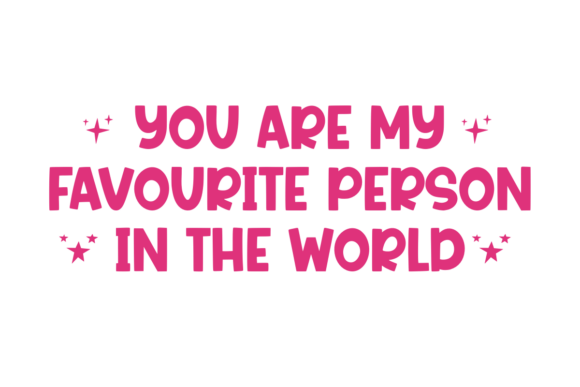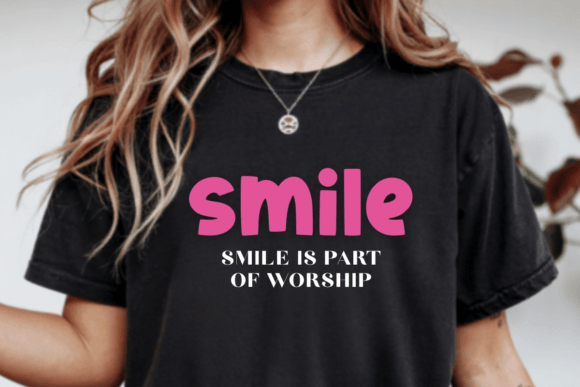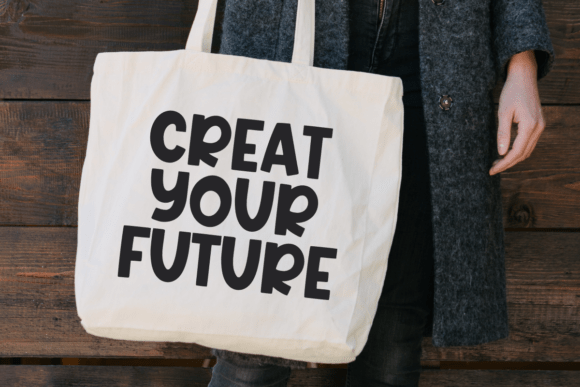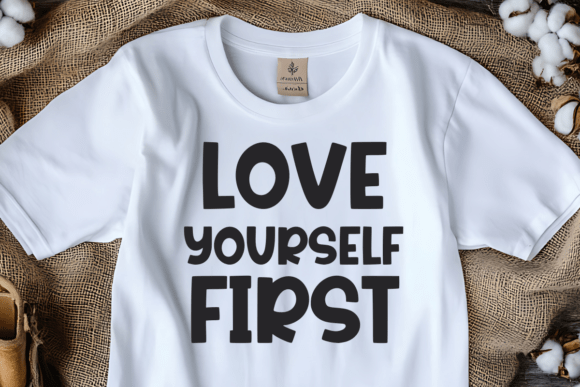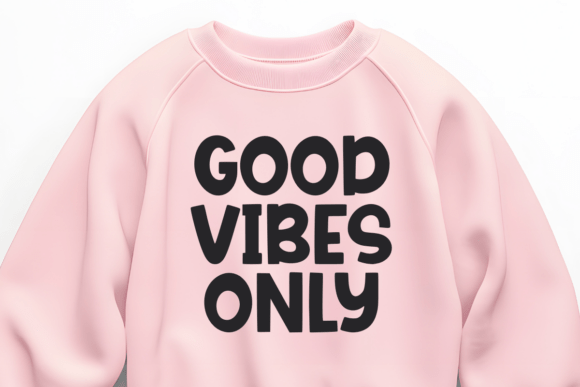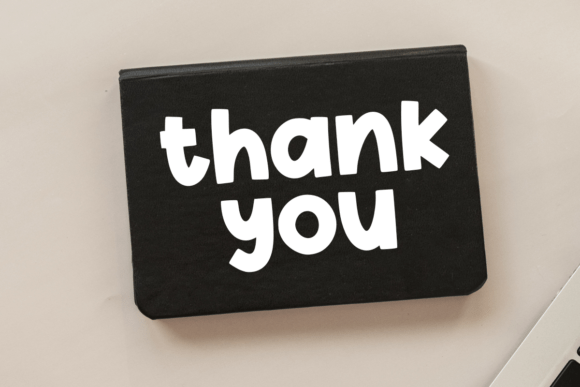
Unleash Your Creativity with Brick Bold Font: The Ultimate Display Font for Fun and Playful Designs
Are you tired of using the same old fonts for your designs? Do you want to add a burst of energy and playfulness to your projects? Look no further than Brick Bold, a vibrant and playful display font designed by Minimalist Eyes. This font is perfect for designers and crafters who want to create eye-catching and engaging designs that stand out from the crowd.
What Makes Brick Bold Font So Special?
Brick Bold font features thick, rounded characters and a friendly, hand-drawn feel that gives it a unique and approachable personality. Its bold and bubbly aesthetic makes it perfect for projects that need to make a statement, such as T-shirt designs, nursery decor, YouTube thumbnails, and branding for kids. The font’s playful and energetic vibe is sure to capture the attention of your audience and leave a lasting impression.
Brick Bold font is versatile and can be used for a wide range of design projects, including:
- T-shirt designs: Create eye-catching and fun designs for kids and adults alike with Brick Bold font. Its bold and playful aesthetic is sure to make your designs stand out.
- Nursery decor: Add a touch of playfulness and whimsy to nursery decor with Brick Bold font. Its friendly and approachable feel makes it perfect for kids’ rooms.
- YouTube thumbnails: Create bold and attention-grabbing thumbnails for your YouTube videos with Brick Bold font. Its vibrant and energetic vibe is sure to entice viewers to click on your video.
- Branding for kids: Create engaging and fun branding for kids with Brick Bold font. Its playful and bubbly aesthetic is perfect for kids’ products and services.
- Stickers and greeting cards: Add a personal touch to your stickers and greeting cards with Brick Bold font. Its hand-drawn feel and playful aesthetic make it perfect for these types of projects.
- Social media graphics: Create engaging and fun social media graphics with Brick Bold font. Its bold and attention-grabbing aesthetic is sure to make your graphics stand out.
Why Choose Brick Bold Font?
There are many reasons why Brick Bold font is the perfect choice for your design projects:
- Readability: Despite its bold and playful aesthetic, Brick Bold font is highly readable, making it perfect for designs that need to communicate a message.
- Personality: Brick Bold font has a unique and playful personality that is sure to add a burst of energy to your designs.
- Versatility: Brick Bold font can be used for a wide range of design projects, from T-shirt designs to social media graphics.
| Author | Minimalist Eyes |
If you’re looking for a font that can add a burst of energy and playfulness to your designs, look no further than Brick Bold font. Its bold and bubbly aesthetic, combined with its readability and versatility, make it the perfect choice for a wide range of design projects. Whether you’re a designer or crafter, Brick Bold font is sure to become a favorite in your font library.